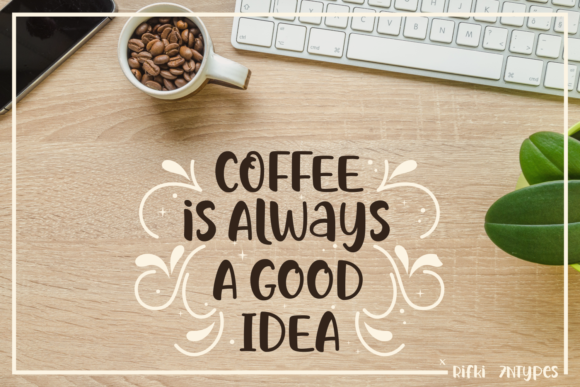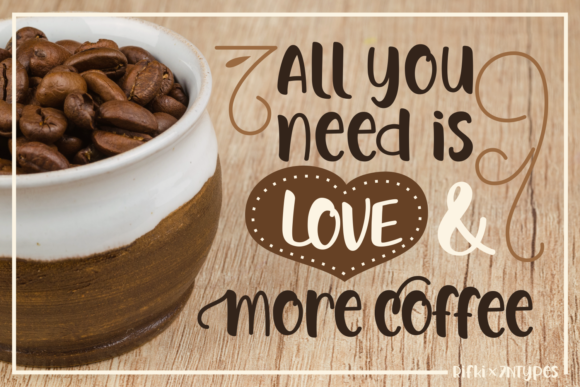
Kepo Coffee Font
About Kepo Coffee Font
The Kepo Coffee is an handwritten script font. Its included swirls can add a playful touch, but can also be used to give your design that stiking, yet elegant look.